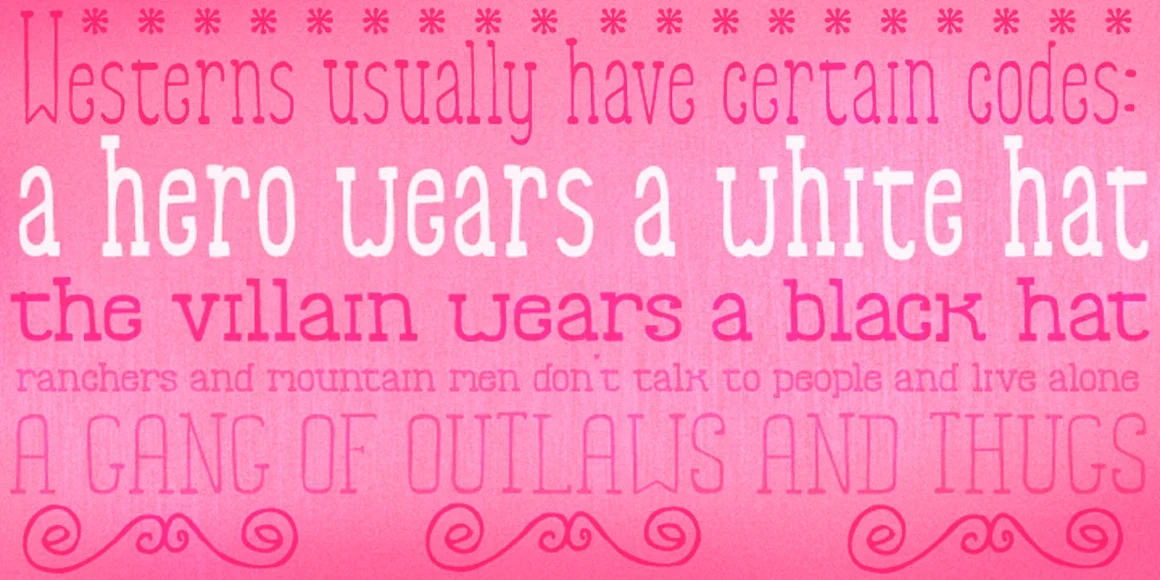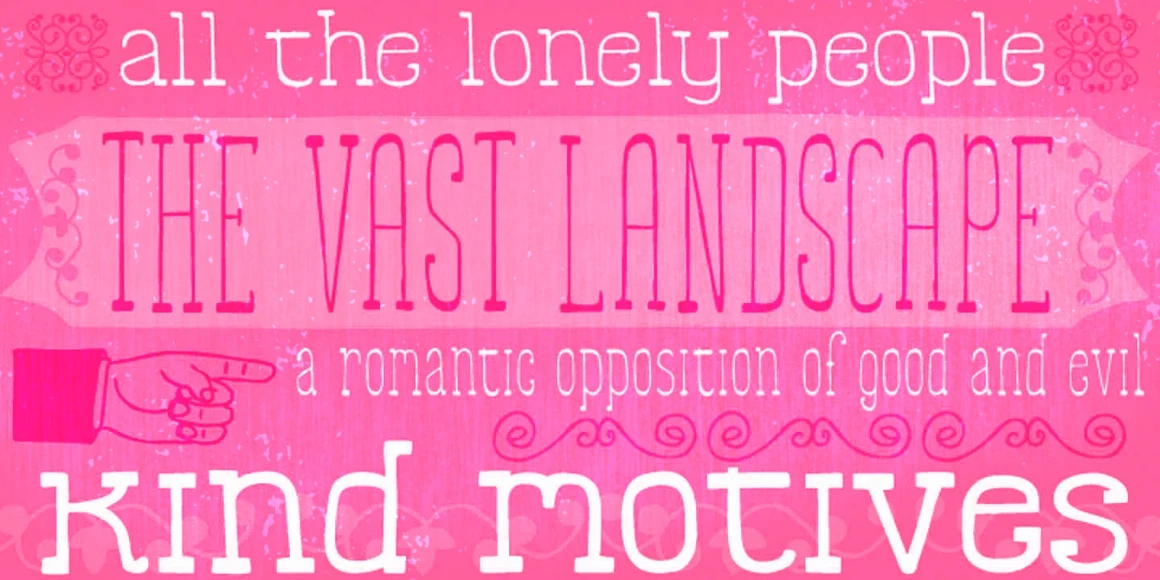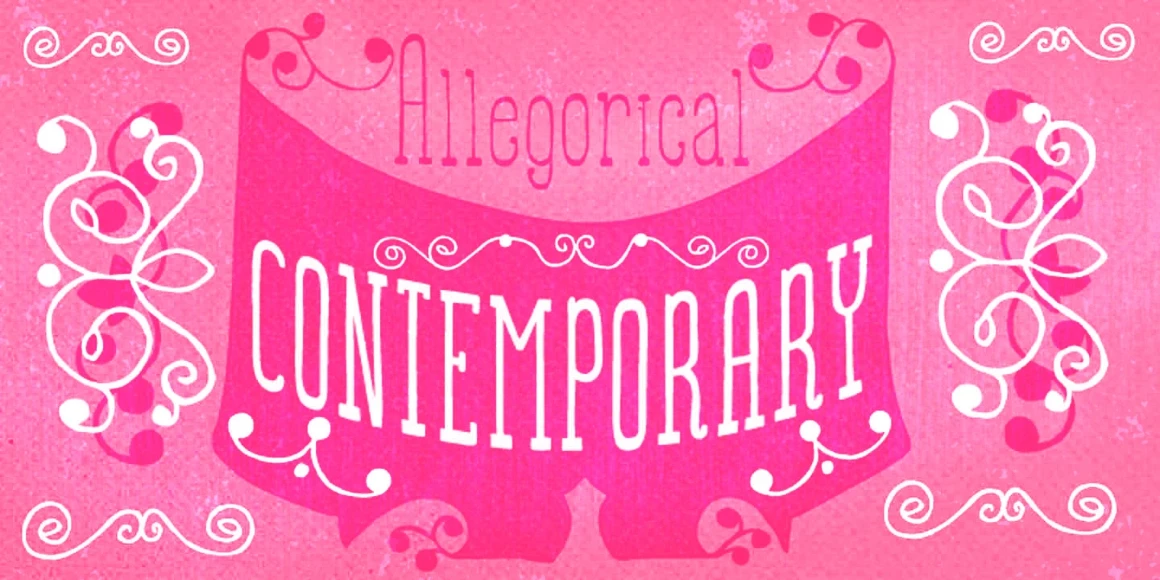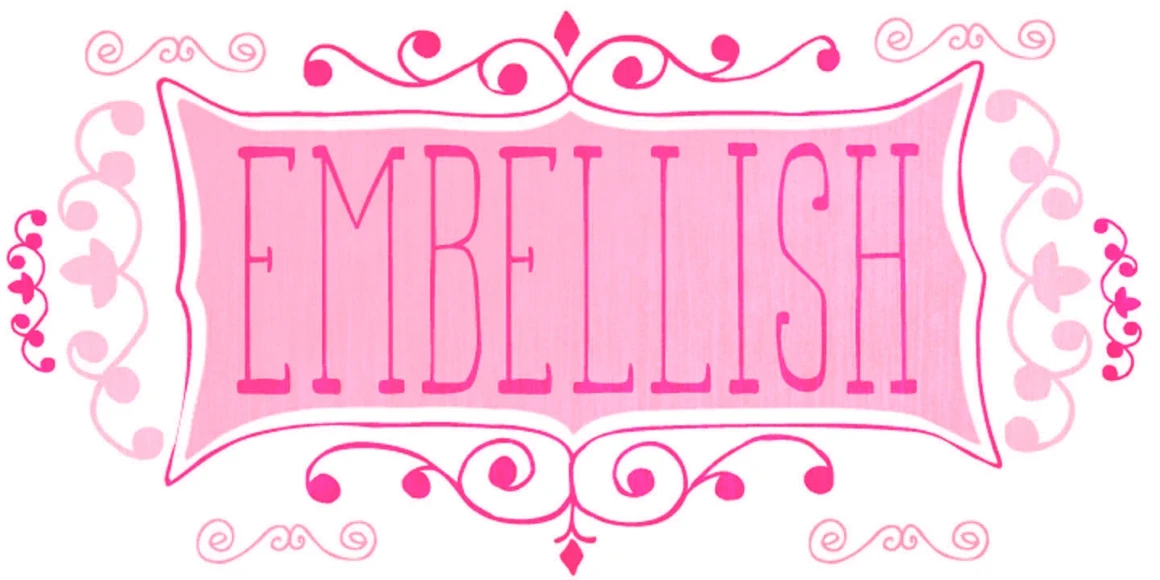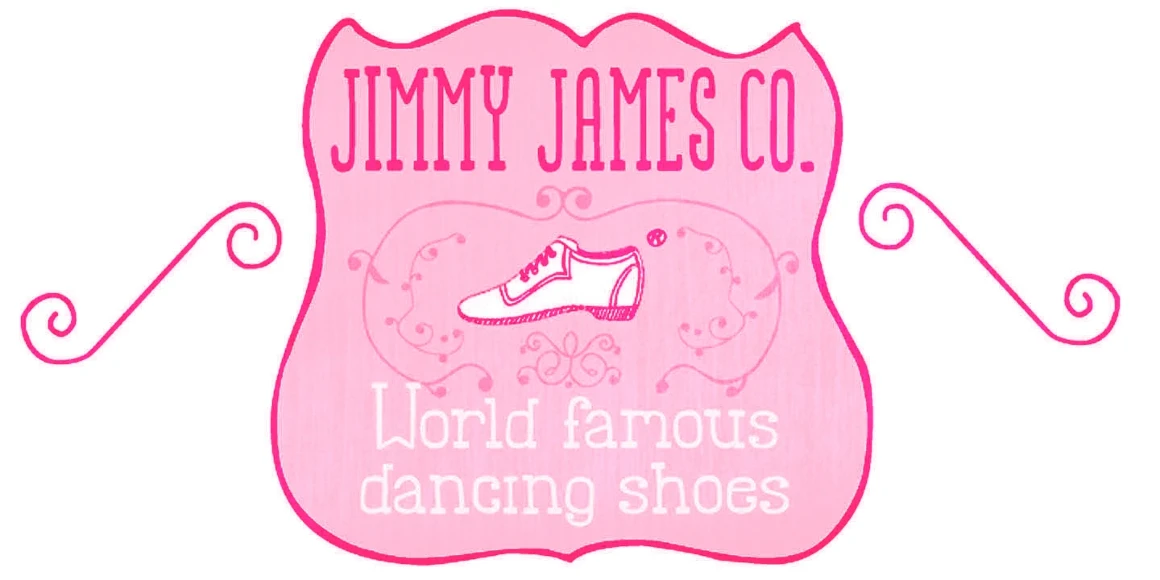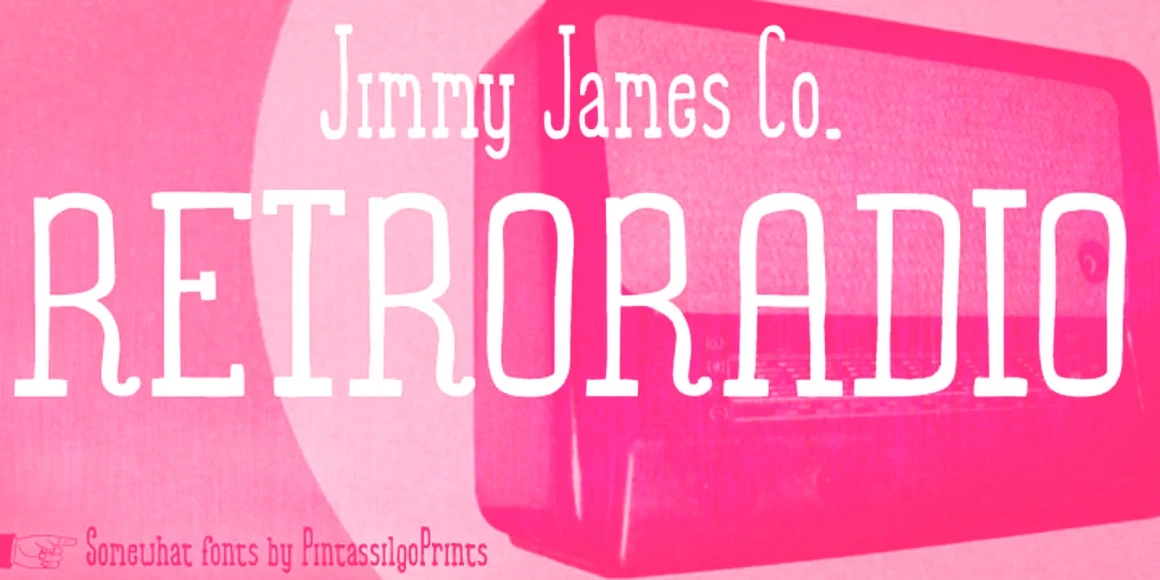
Somewhat
Somewhat Regular
Somewhat Bold
Somewhat Decorative
Somewhat Expanded Regular
Somewhat Expanded Bold
Somewhat is a quirky, hand-drawn slab serif with an upright stance and plenty of personality. With 4 styles and a playful set of ornaments, it balances whimsical charm and simple clarity in equal measure. Its bouncy forms and irregular proportions make it an attractive choice for friendly magazine headlines, comic book covers, children’s packaging, or offbeat branding. Suitable at any size, it’s both readable and expressive — amusing, handsome, and totally handy!